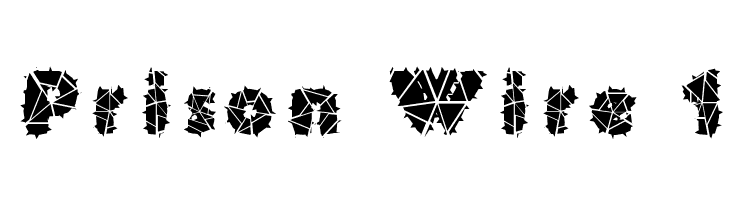
A bold, cracked font with a distressed, shattered appearance.
A bold, jagged font with a distressed, chaotic style.
A bold, jagged font with a chaotic, shattered appearance.
( Fonts by CannotIntoSpaceFonts - KineticPlasma Fonts - Personal-use only. For commercial use please contact owner. )
A jagged, distorted font with a chaotic and edgy aesthetic.
( Fonts by CannotIntoSpaceFonts - KineticPlasma Fonts - Personal-use only. For commercial use please contact owner. )
A bold, decorative font with jagged, fragmented edges for a dynamic look.
( Fonts by CannotIntoSpaceFonts - KineticPlasma Fonts - Personal-use only. For commercial use please contact owner. )
A bold, oblique, and highly decorative font with jagged, irregular edges.
( Fonts by CannotIntoSpaceFonts - KineticPlasma Fonts - Personal-use only. For commercial use please contact owner. )
A highly decorative and abstract font with sharp, angular shapes and fragmented forms.
( Bagus Belo Prayogo - biangwarna.tumblr.com )
A decorative, angular font with a fragmented, geometric design.